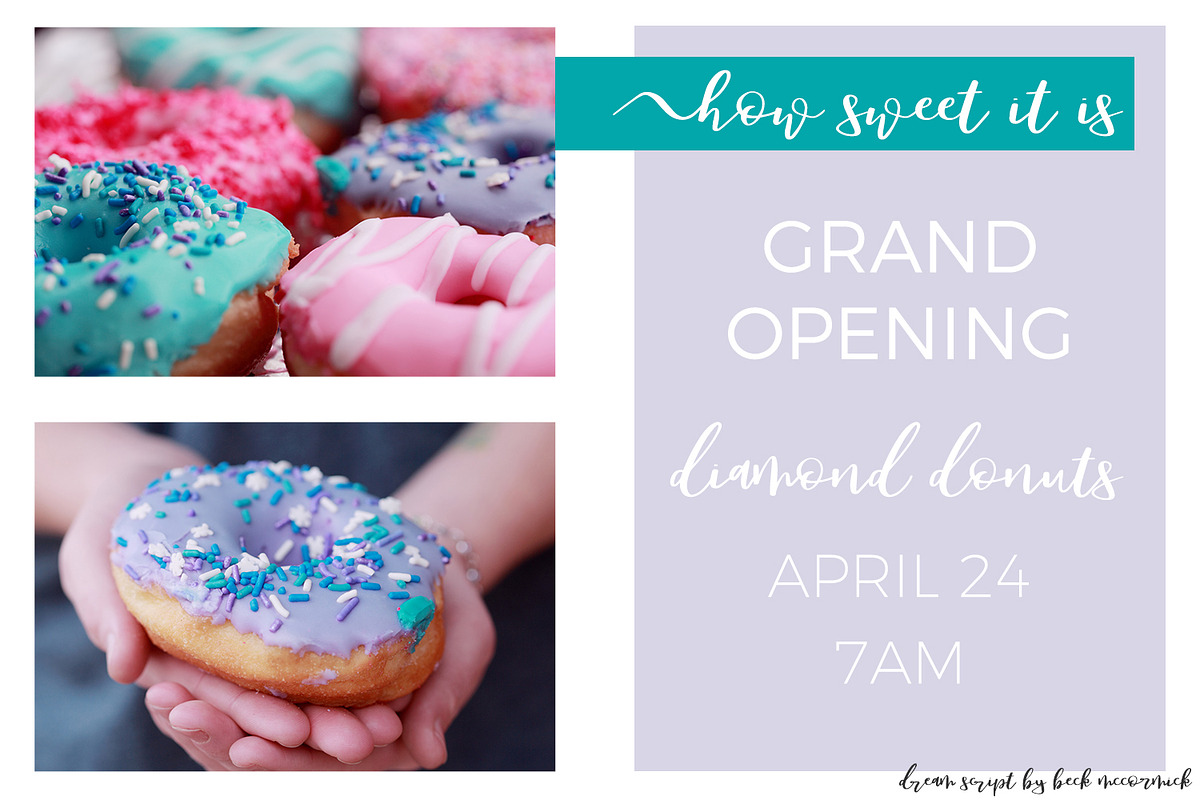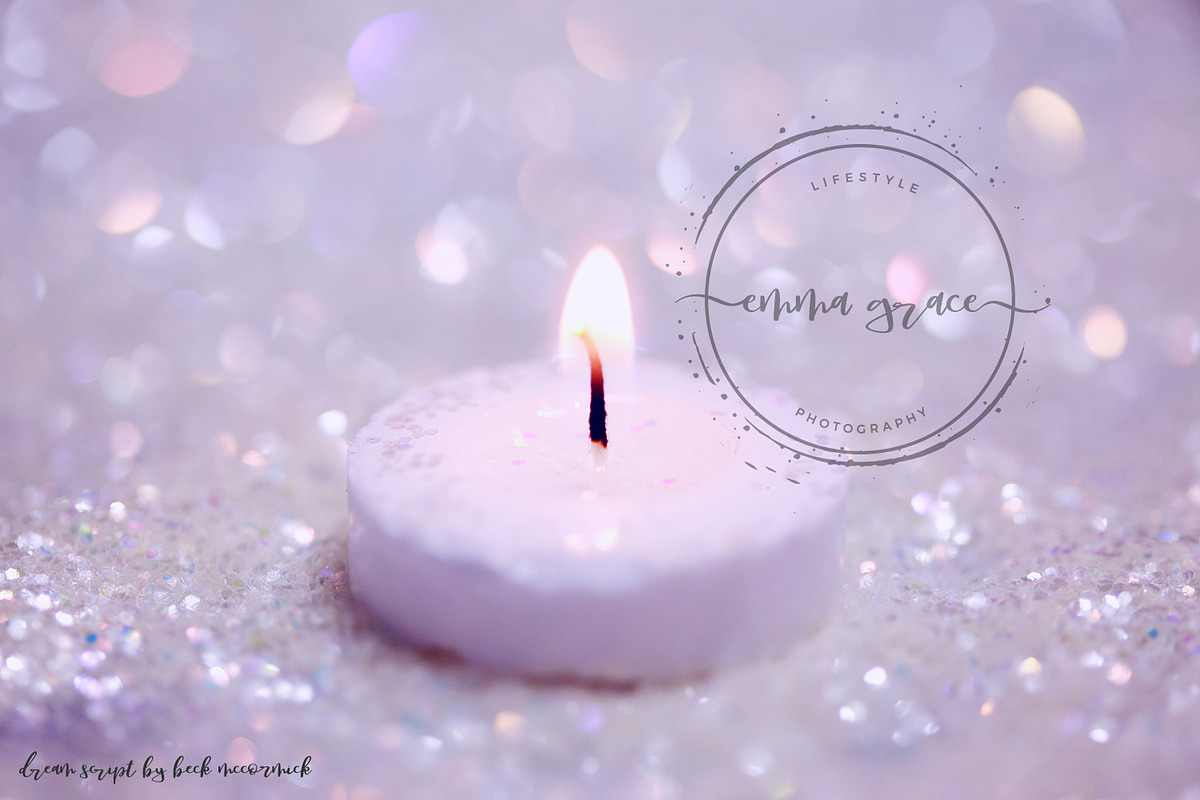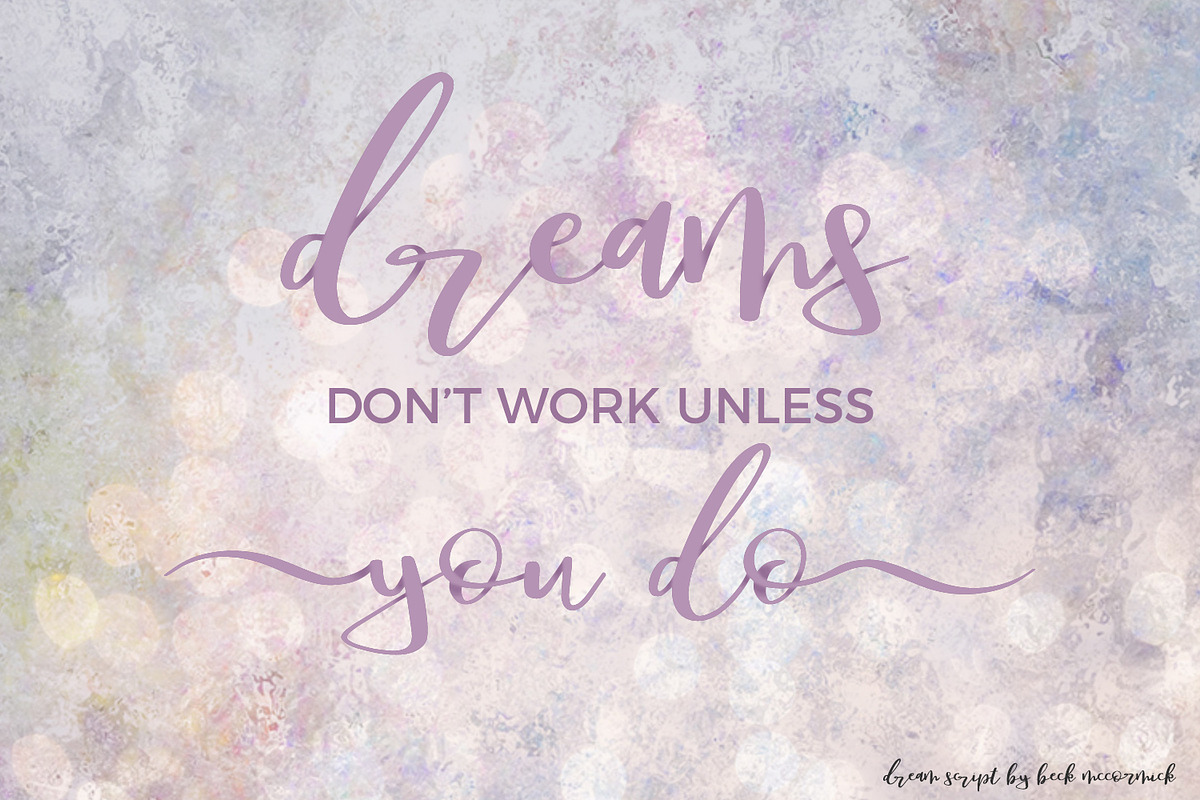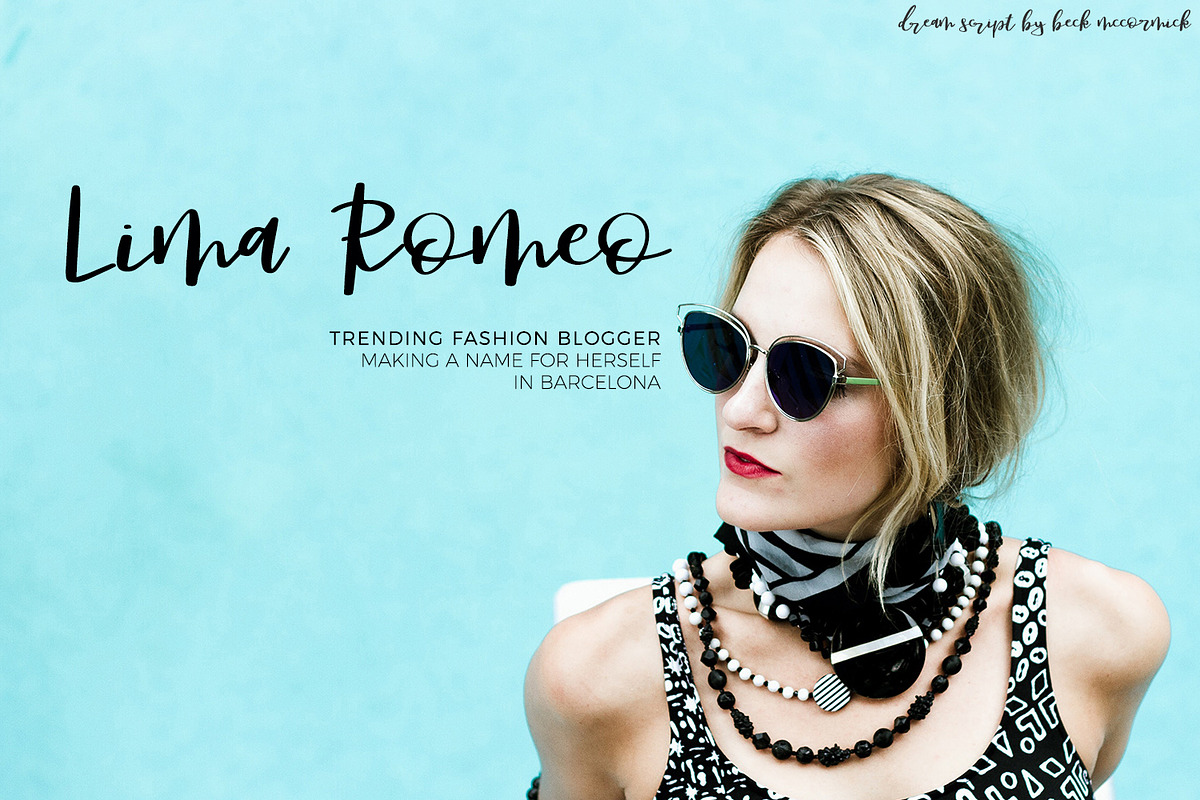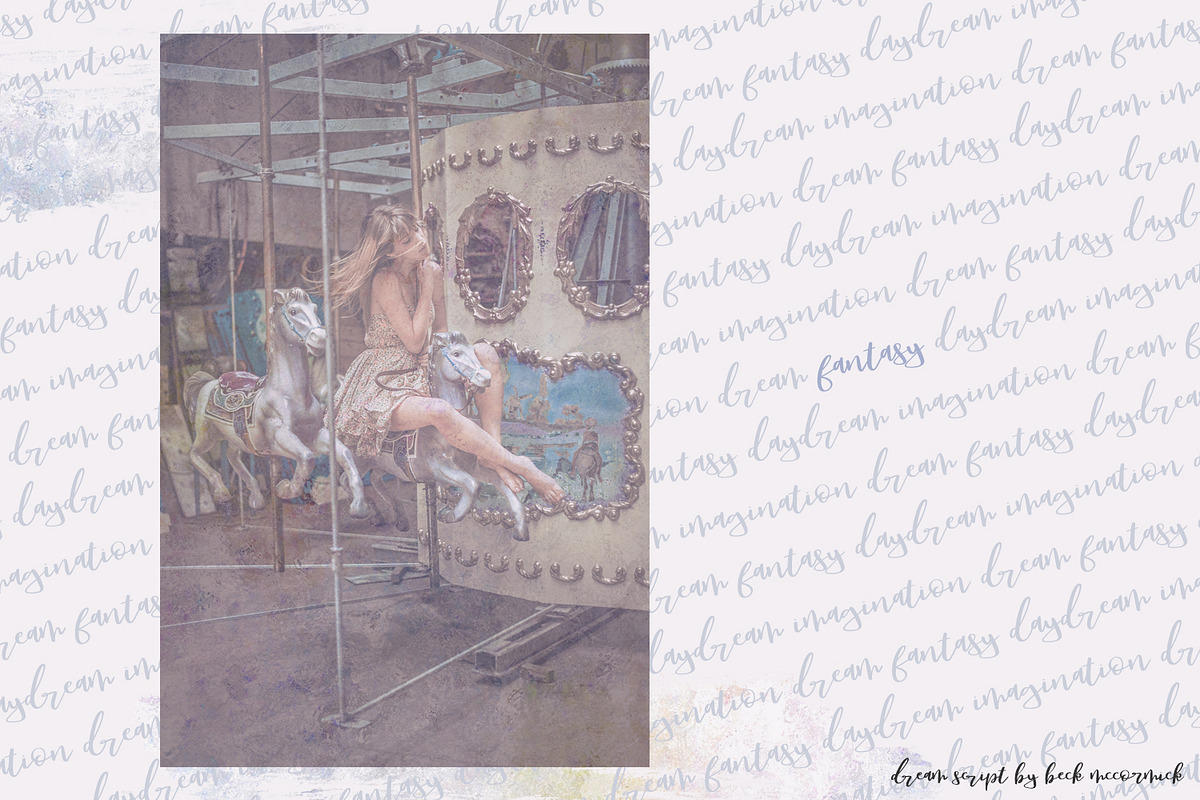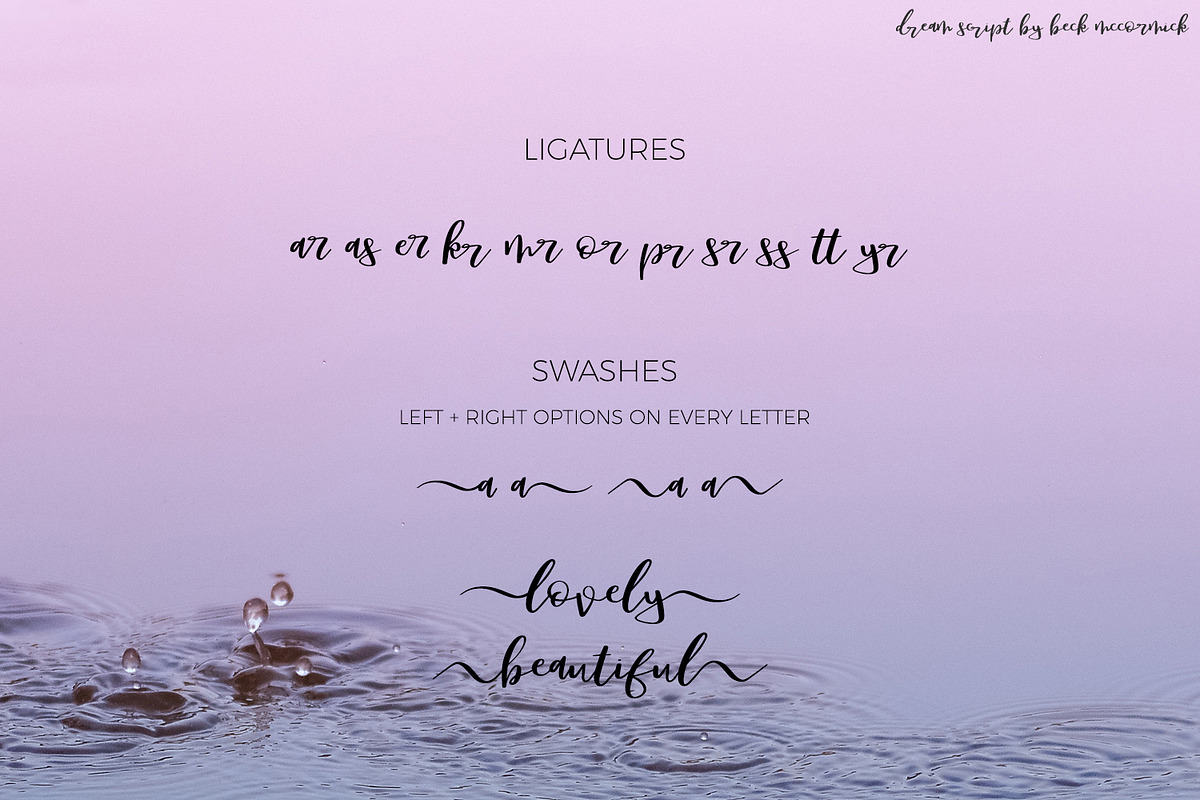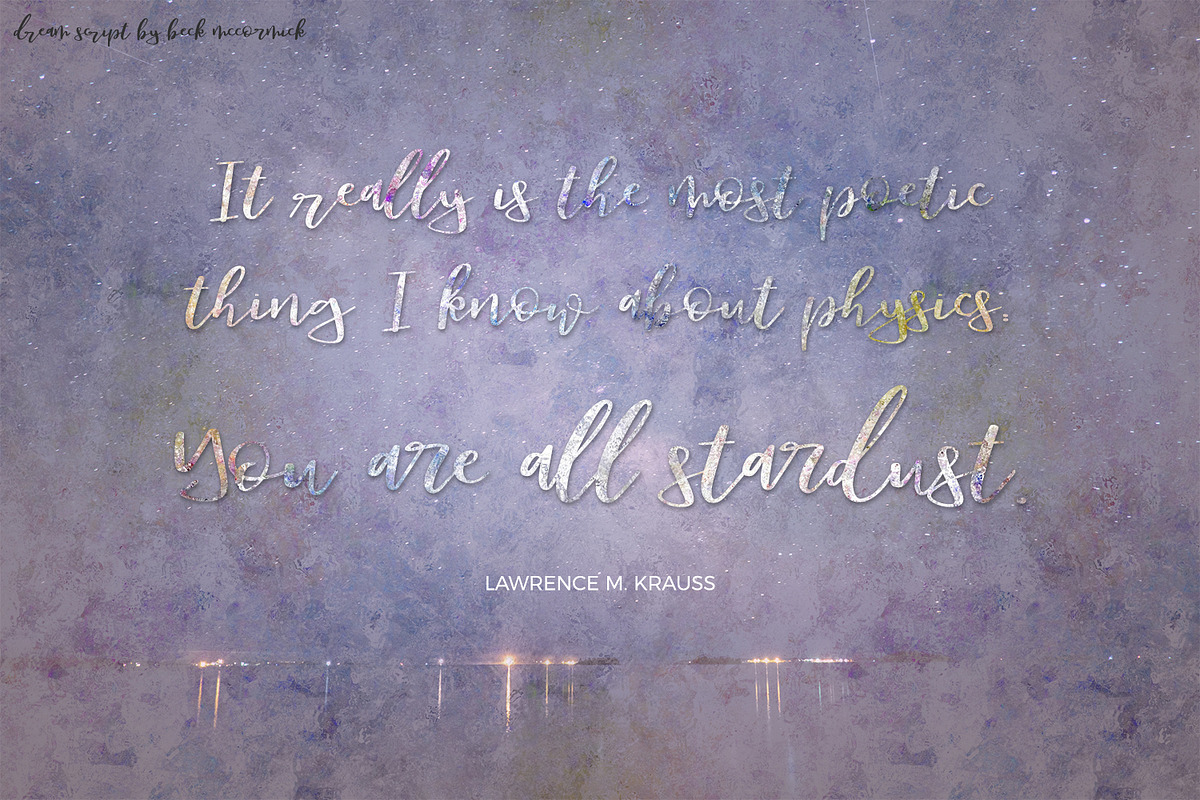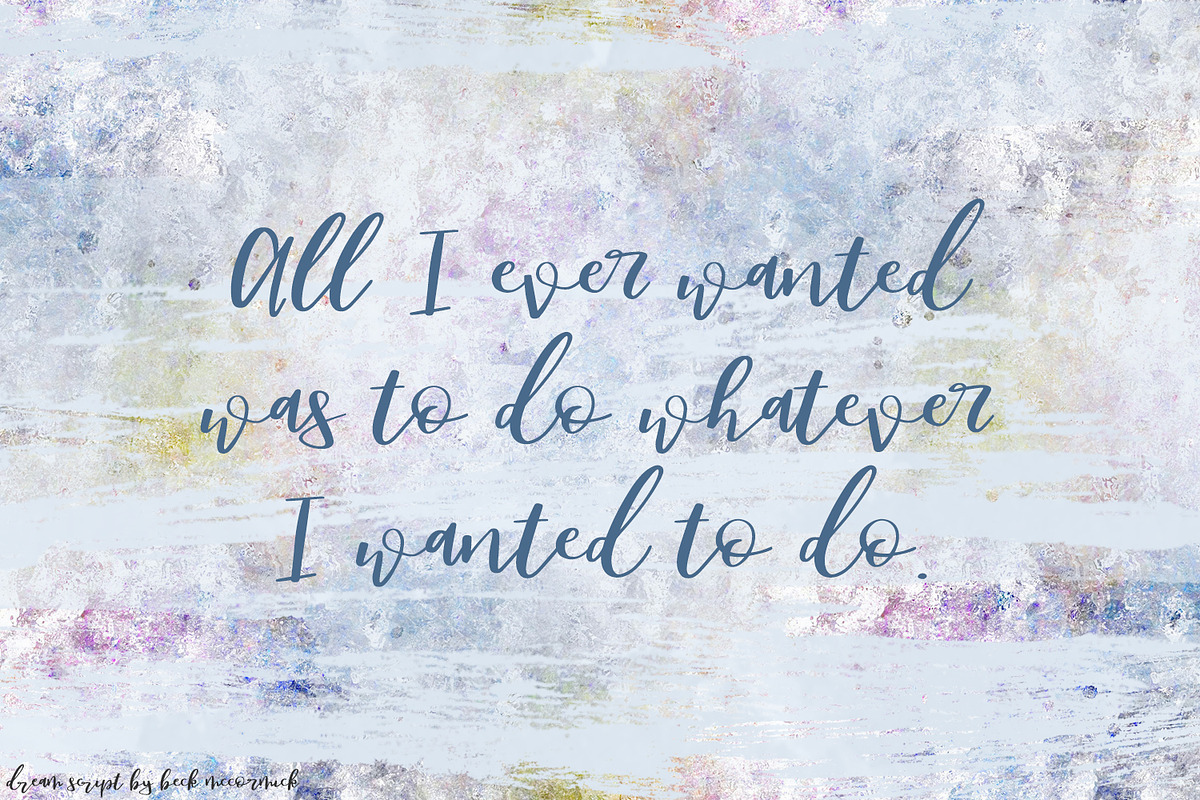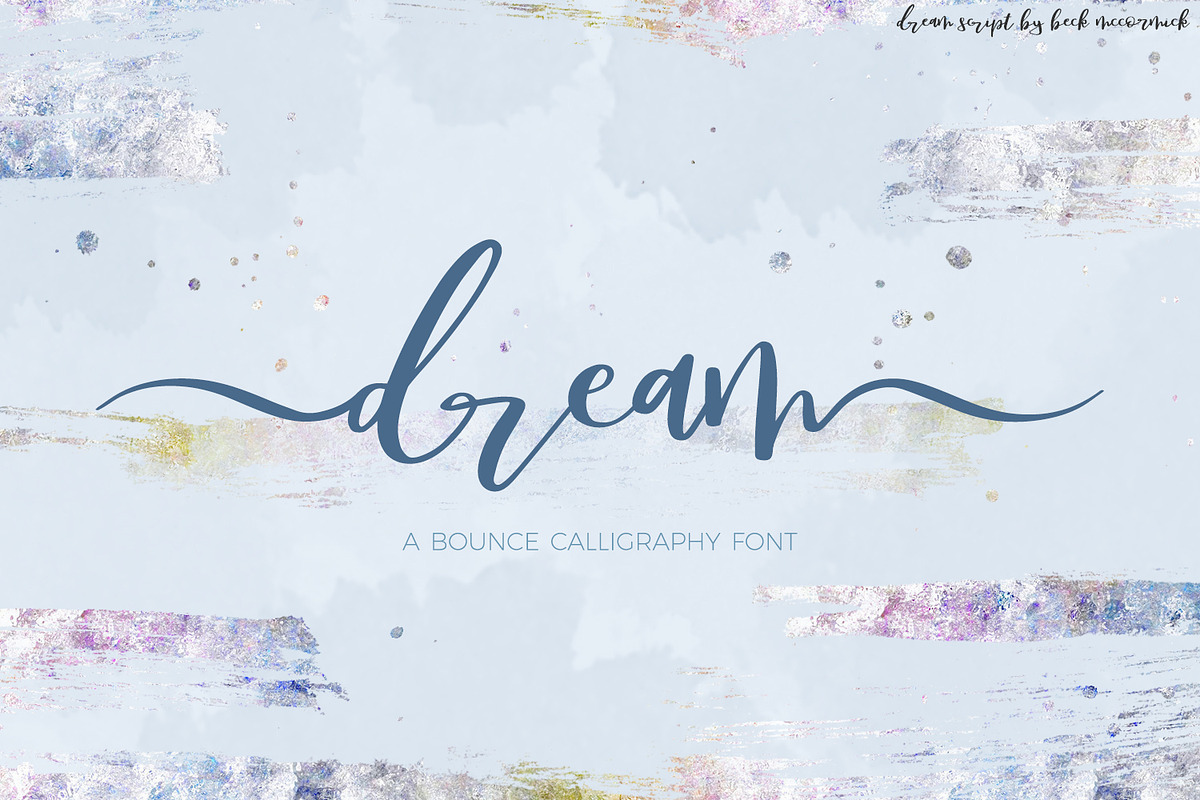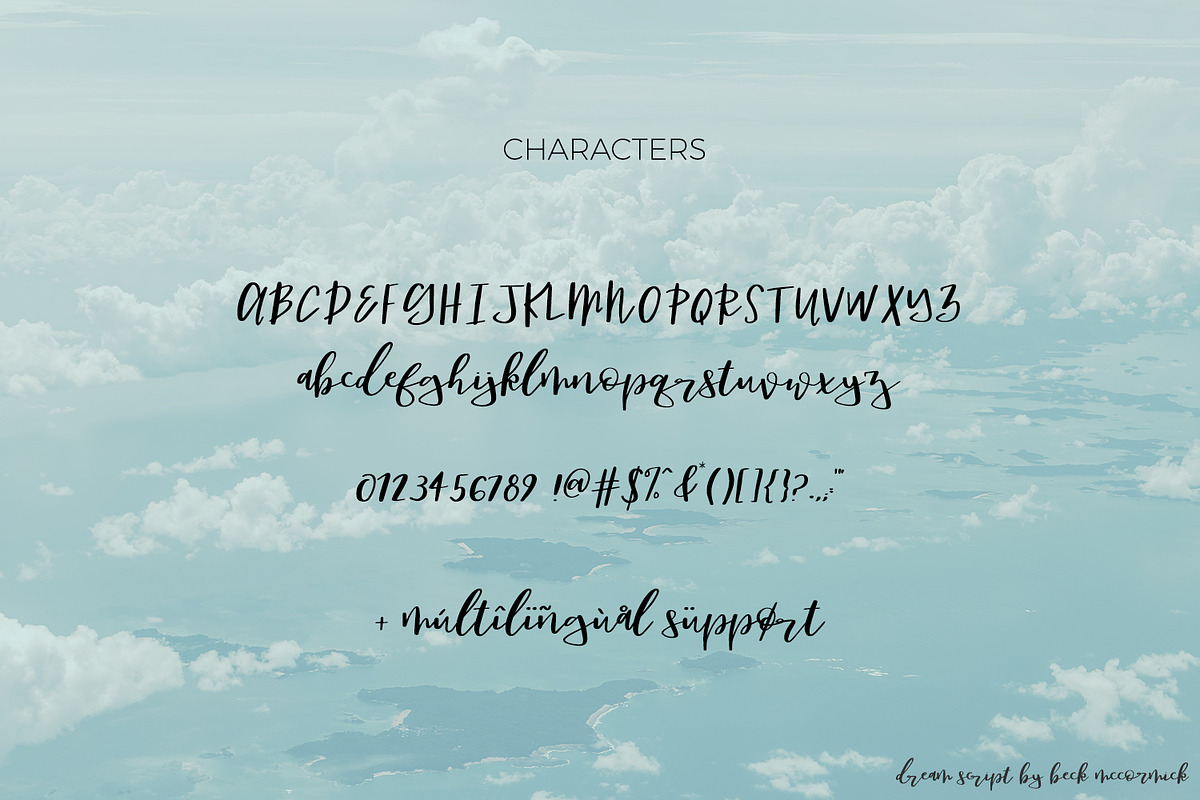
Dream Script with Swashes
All I ever wanted to do was whatever I wanted.
Dream is a bounce calligraphy font, featuring two different swash options, with both left and right swashes, and a few ligatures. Its up & down baseline makes it visually interesting, and perfect for modern branding, invitations, or quote graphics. Dream is PUA-encoded, making its extensive features easy to access.